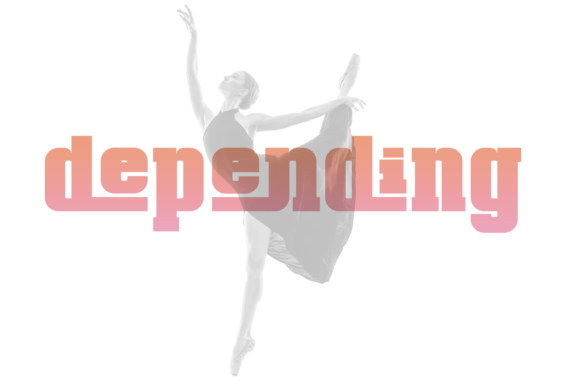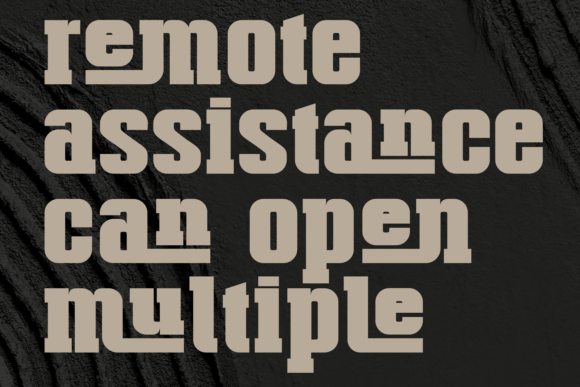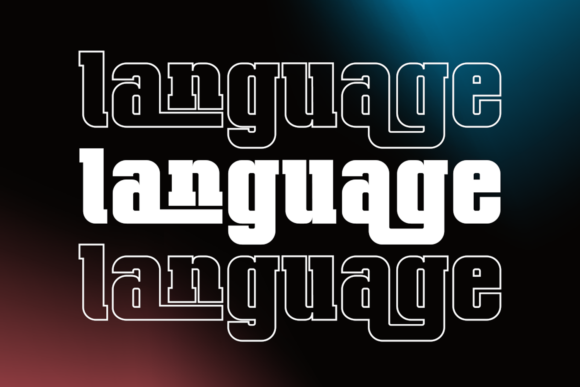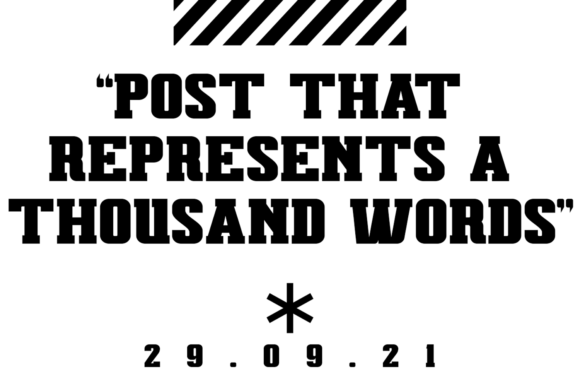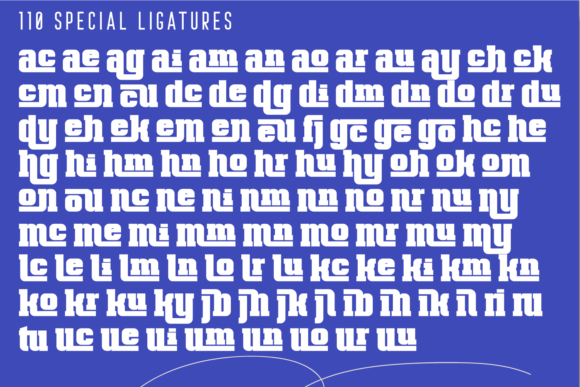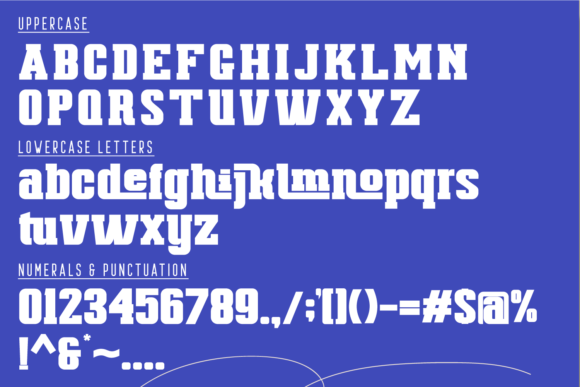
Introduction to Largely Define Font Font
Fonts play a crucial role in design, and the Largely Define Font font is a typeface that brings both character and versatility to any project. Whether you’re working on a branding project, a website, or a print design, the Largely Define Font font offers a unique style that can elevate your work.
Largely Define is a bold, thick lettered and assertive slab serif font.
It is PUA encoded which means you can access all glyphs and swashes with ease Add it confidently to your favorite creations and let yourself be amazed by the outcome generated.
Key Features of Largely Define Font Font
Why Choose Largely Define Font Font?
The Largely Define Font font is more than just a typeface – it’s a design tool that helps you communicate your message with style and clarity. Its unique character set and versatile design make it suitable for a wide range of applications, from elegant invitations to bold headlines.
With its carefully crafted letterforms and balanced proportions, the Largely Define Font font ensures readability and visual appeal across all mediums.
What makes Largely Define Font font special?
The Largely Define Font font stands out with its unique design, exceptional readability, and versatility across various design applications.